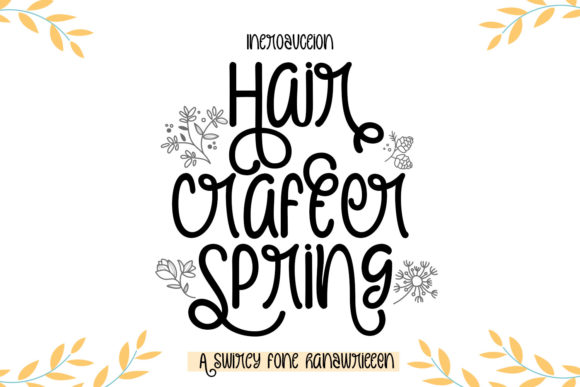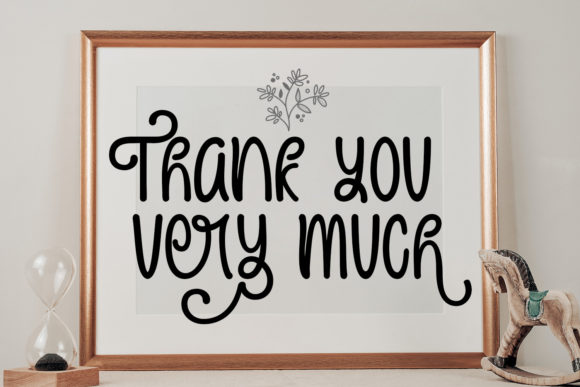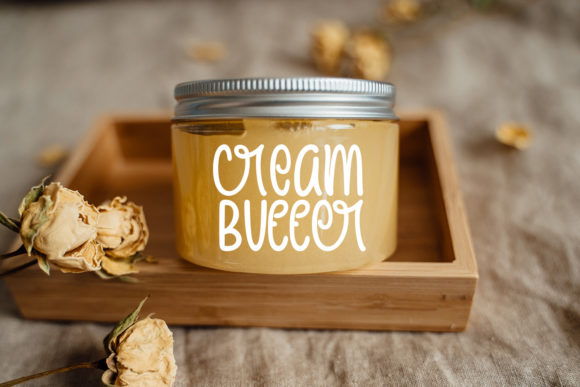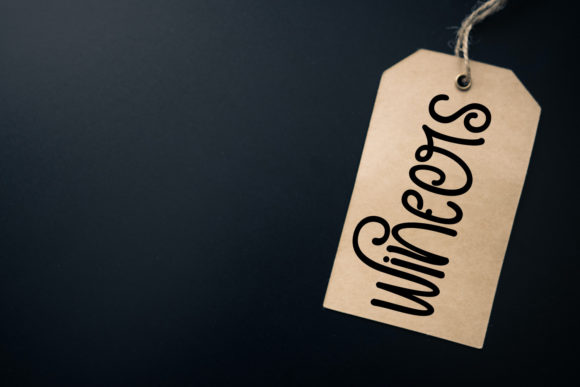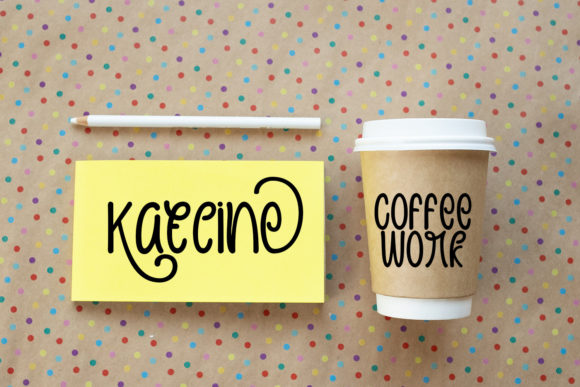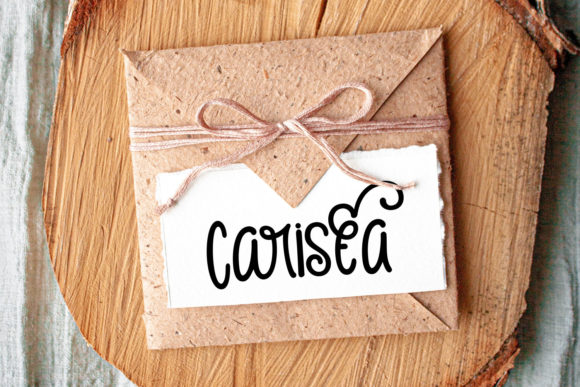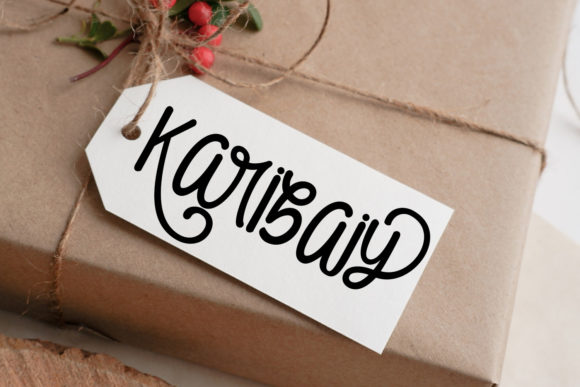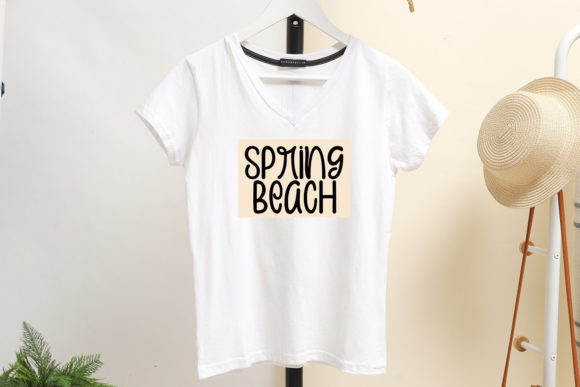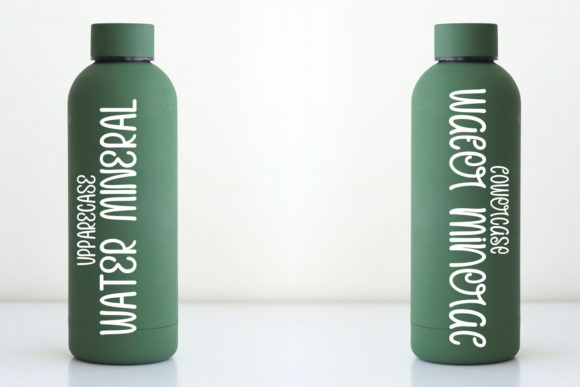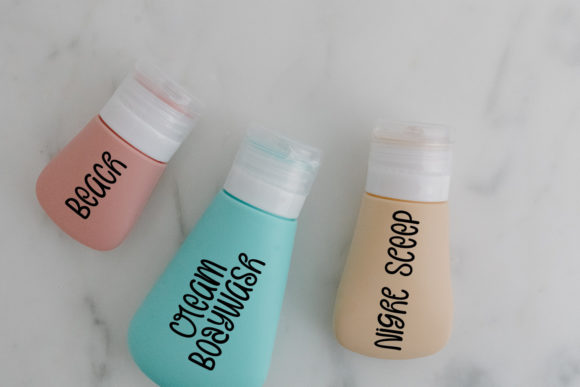
Hair Crafter Spring Font
About Hair Crafter Spring Font
Hair Crafter Spring emerges as a swirly and charming handwritten font, characterized by its trendy and stylish design. This font serves as a versatile and delightful addition to your creative toolkit, promising to elevate the aesthetic of each of your creations. With its playful swirls and cute elements, Hair Crafter Spring brings a touch of whimsy and sophistication to your projects.
The font’s swirly features contribute to its trendy appeal, making it well-suited for a variety of design applications. Whether you’re working on invitations, posters, social media graphics, or any other visual content, Hair Crafter Spring effortlessly adds a level of chic elegance to your work.
One notable feature of Hair Crafter Spring is its PUA encoding, which enhances the user experience by providing easy access to all the glyphs and swashes. This means you have the flexibility to incorporate a range of decorative elements and customize your text according to your creative vision. The PUA encoding empowers designers to explore and experiment with the font’s full potential, allowing for a personalized and unique touch in each project.
This font is particularly well-suited for projects that require a blend of modern aesthetics and a touch of playfulness. Its versatility allows it to adapt to different themes and design styles, ensuring that it remains a valuable asset in your creative endeavors.
Hair Crafter Spring not only adds a visual appeal to your designs but also brings a sense of joy and positivity. The swirly and cute handwritten style of the font evokes a lighthearted and pleasant atmosphere, making it an excellent choice for projects that aim to resonate with a trendy and contemporary audience.
In conclusion, Hair Crafter Spring is more than just a font; it’s a creative tool that infuses your designs with a trendy, stylish, and cute vibe. Its swirly elements and PUA encoding make it an accessible and versatile choice for designers looking to enhance their projects with a touch of playful sophistication. Elevate your creations with the charm of Hair Crafter Spring and watch as it transforms your visual storytelling.